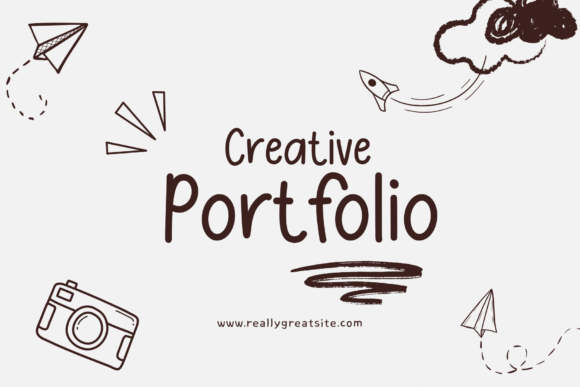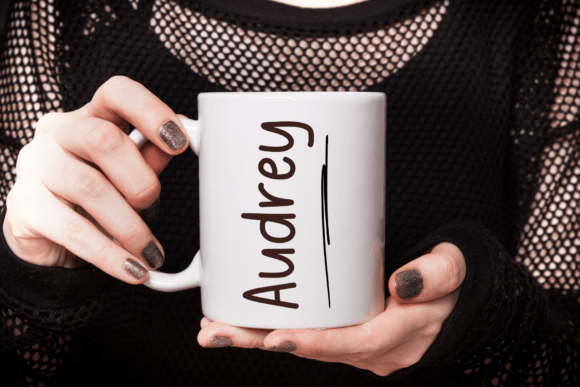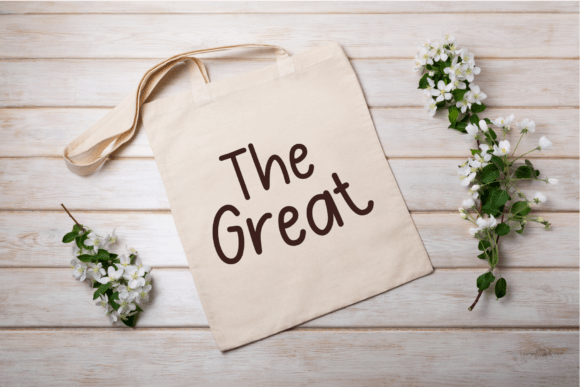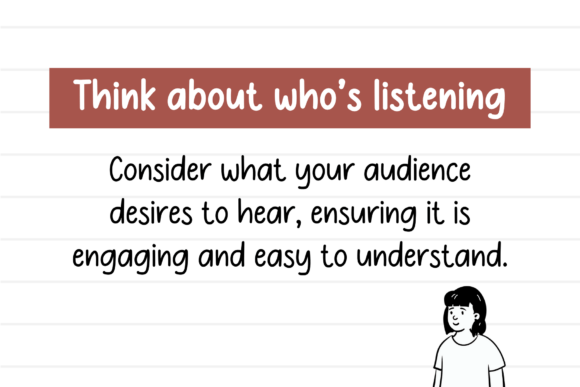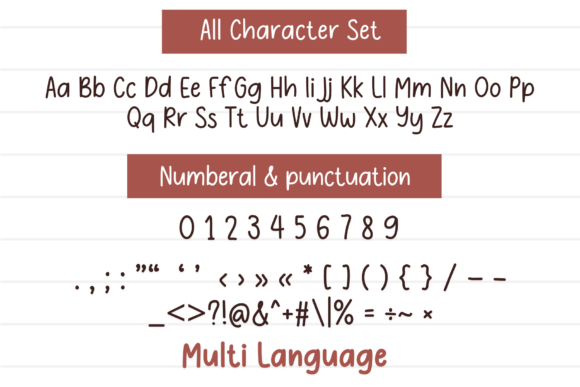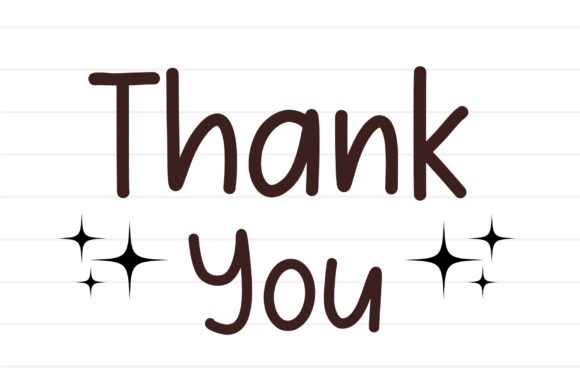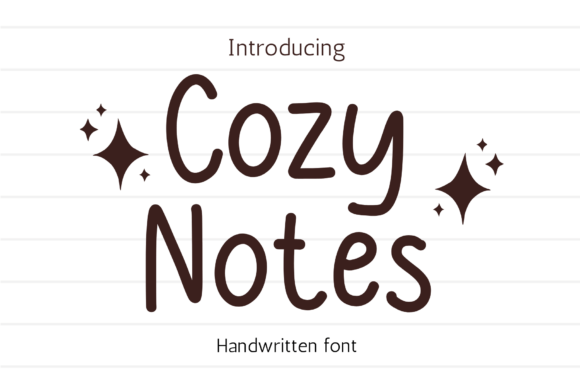
Introducing Cozy Notes Font: The Perfect Handwritten Touch for Your Designs
Are you looking for a font that adds a personal touch to your designs? Look no further than Cozy Notes, a beautiful handwritten font that embodies playfulness and authenticity. Whether you’re working on a blog post, logo, branding, ad, invitation, greeting card, planner, photo album, or decoration, Cozy Notes is the perfect choice to make your project stand out.
Handwritten fonts have a unique charm that digital fonts often lack. They bring a sense of personality and human touch to any design, making it more relatable and engaging. Cozy Notes is no exception. This font is carefully crafted to mimic the imperfections and quirks of handwriting, giving your designs a warm and cozy feel.
What Makes Cozy Notes Special?
So, what sets Cozy Notes apart from other handwritten fonts? Here are a few reasons why designers and crafters love this font:
- Playfulness: Cozy Notes has a playful and carefree vibe that’s perfect for designs that need a lighthearted touch.
- Authenticity: This font is designed to look like it was written by hand, giving your designs a genuine and authentic feel.
- Versatility: Cozy Notes can be used for a wide range of projects, from blog posts and social media graphics to logos, branding, and marketing materials.
- Ease of use: This font is easy to read and works well in both large and small sizes, making it perfect for a variety of applications.
Uses for Cozy Notes Font
The possibilities are endless when it comes to using Cozy Notes in your designs. Here are some ideas to get you started:
- Blog posts: Add a personal touch to your blog posts with Cozy Notes. Use it for headings, subheadings, or even entire paragraphs.
- Logos and branding: Create a unique and memorable logo for your business or brand with Cozy Notes.
- Ads and marketing materials: Use Cozy Notes to add a playful touch to your ads, flyers, brochures, and other marketing materials.
- Invitations and greeting cards: Make your invitations and greeting cards more special with Cozy Notes. This font is perfect for weddings, birthdays, holidays, and other celebrations.
- Planners and journals: Add a personal touch to your planners, journals, and notebooks with Cozy Notes.
- Photo albums and scrapbooking: Use Cozy Notes to add captions and notes to your photo albums and scrapbooking projects.
- Decorations: Create beautiful decorations for your home or office with Cozy Notes. Use it to make signs, banners, and other decorative items.
Tips for Using Cozy Notes Font
Here are some tips for getting the most out of Cozy Notes:
- Experiment with sizes and colors: Cozy Notes works well in a variety of sizes and colors. Experiment with different combinations to find the one that works best for your design.
- Mix and match with other fonts: Cozy Notes pairs well with other fonts. Try mixing and matching it with serif, sans-serif, or script fonts to create a unique look.
- Use it consistently: Use Cozy Notes consistently throughout your design to create a cohesive look.
Cozy Notes is a beautiful handwritten font that’s perfect for designers and crafters who want to add a personal touch to their designs. With its playful and authentic vibe, this font is versatile and easy to use. Whether you’re working on a blog post, logo, branding, ad, invitation, greeting card, planner, photo album, or decoration, Cozy Notes is the perfect choice. So why wait? Download Cozy Notes today and start creating beautiful designs that stand out!